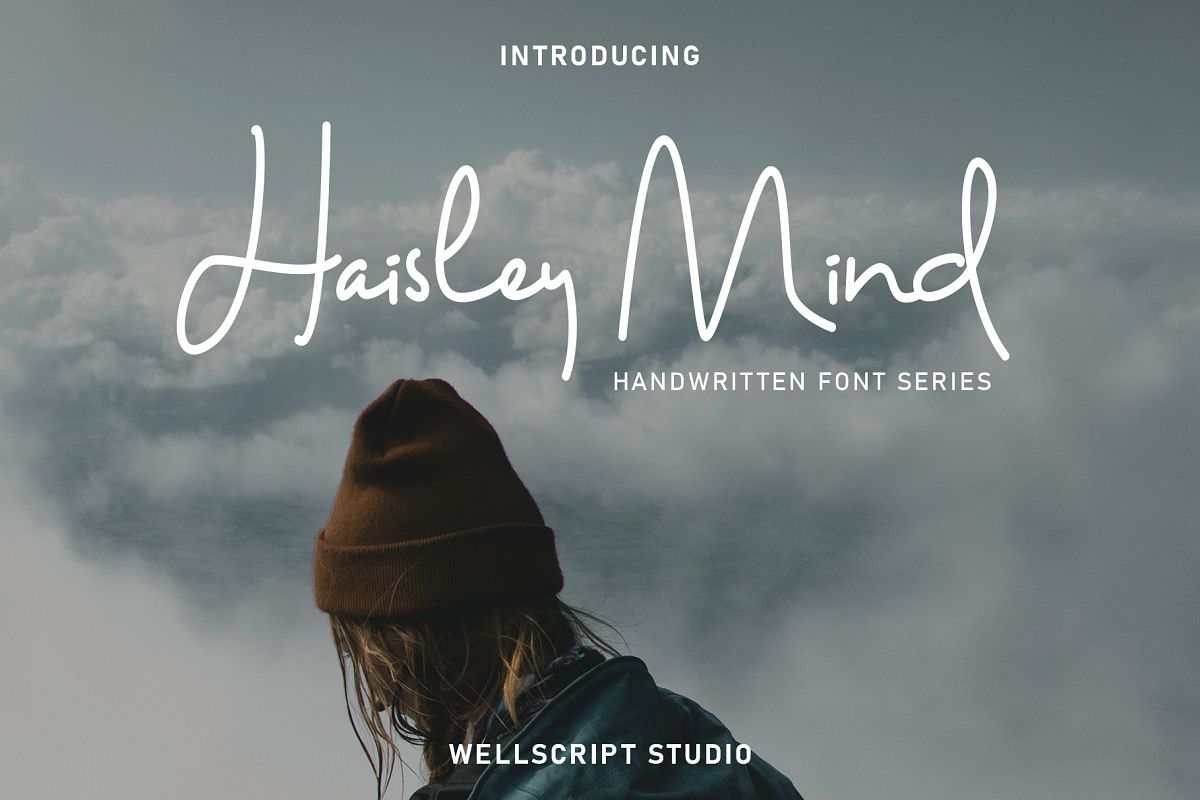
Haisley Mind - Handwritten Script
Haisley Mind is an unique monoline handwritten signature script. It has an simple flow with a natural and organic look. This collection of scripts is perfect for valentine, wedding and branding. This works well for many applications. Everything from branding, wedding invitations, social media posts, advertisements, product packaging, product designs, label, photography, watermark, invitation, stationery and any projects that need handwriting taste.
Haisley Mind includes full set of gorgeous uppercase and lowercase letters, numerals, a large range of punctuation and ligatures.